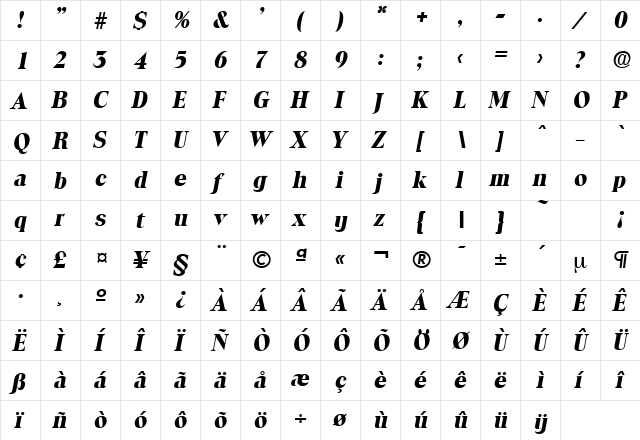
Toledo-Serial-ExtraBold RegularItalic Font Preview
Design Context for Toledo-Serial-ExtraBold Typeface
Toledo-Serial-ExtraBold takes a measured approach to typography — its balanced proportions and neutral character make it a reliable workhorse for both digital and print work. Its italic angle brings a sense of urgency and motion to the letterforms. Its bold stroke weight gives it real presence on the page.
Pro Tip: Use Toledo-Serial-ExtraBold for emphasis, pull quotes, and subheadings where its slanted energy can add rhythm to the layout.